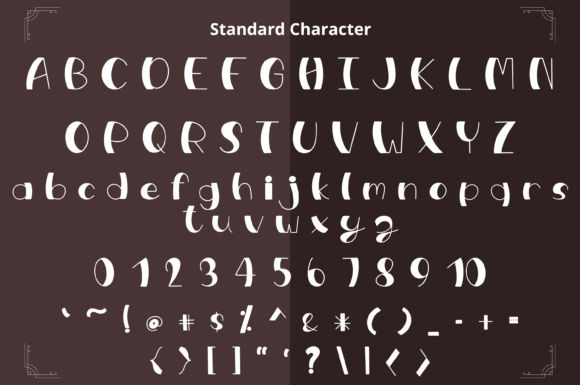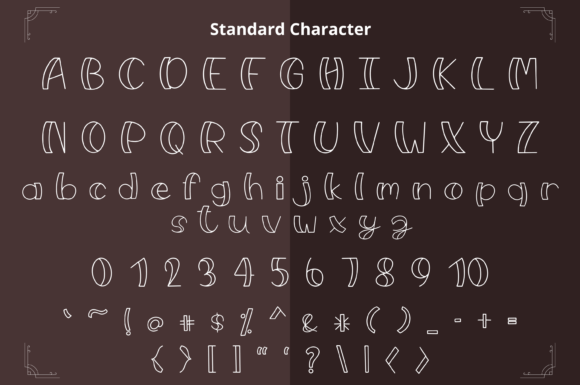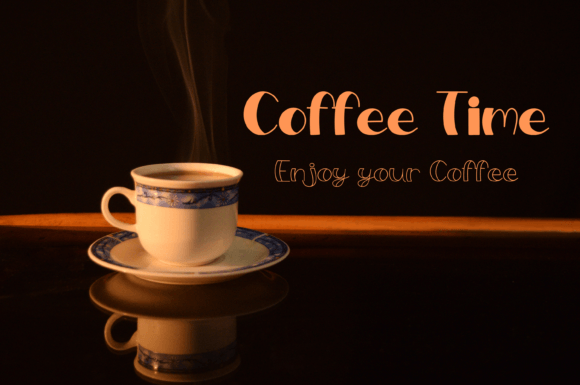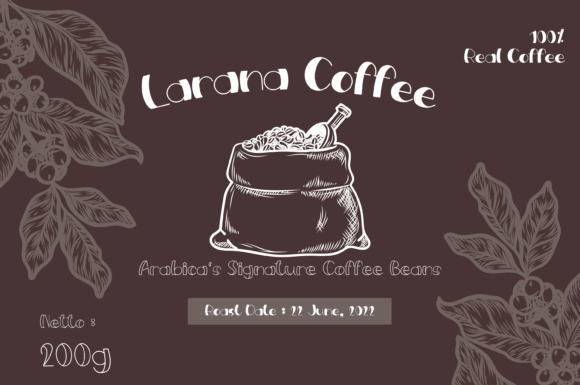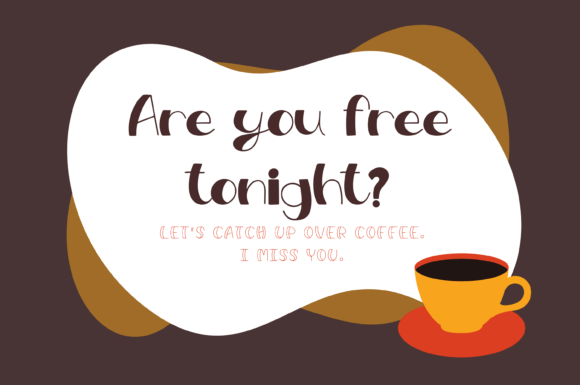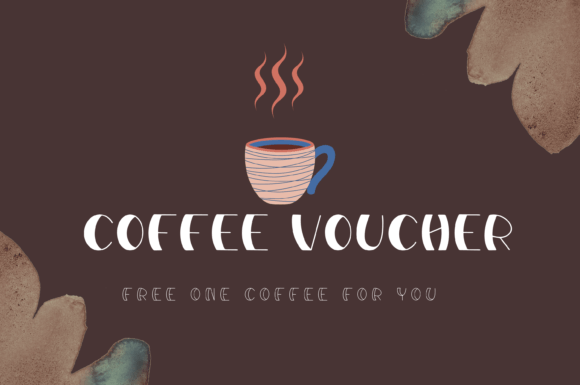
Introduction to Hello Espresso Style Font
Remember that moment when you’re brainstorming ideas for your next creative project, and suddenly, the perfect font pops into your head? For many designers, this is the spark that sets their imagination ablaze. But what happens when you can’t quite find the font that captures the essence of your vision? Enter the Hello Espresso Style Font, a delightful and clean handwritten font that’s sure to elevate your designs to the next level.
With its whimsical touch and high-quality design, the Hello Espresso Style Font is a valuable asset for any designer looking to add a personal touch to their projects. Whether you’re working on a free download or a paid design resource, this font is sure to make your creative ideas stand out. Its transparent background and elegant script make it the perfect match for a wide range of projects, from wedding invitations to marketing materials.
Key Features of Hello Espresso Style Font
- High-quality font design for creative projects, offering a unique and modern look.
- Features a transparent background, making it easy to use on various backgrounds.
- Supports a wide range of languages, making it a versatile design resource.
Honest Review: Hello Espresso Style Font
I recently had the chance to work with the Hello Espresso Style Font, and I must say it’s been a game-changer for my creative projects. The font is a high-quality design resource that can elevate any project with its sleek and modern design.
One of the things that stood out to me about the Hello Espresso Style Font is its transparent background, which makes it incredibly versatile and easy to work with. It’s perfect for designers who want to create a cohesive and polished look without the hassle of complicated background designs.
Here are some of the things that work well with the Hello Espresso Style Font:
- ✨ High-quality design: The font is clear, crisp, and professional-looking.
- ✨ Transparent background: Makes it easy to work with and combine with other design elements.
As with any design resource, there are some limitations to consider:
- ⚠️ Limited character set: May not be suitable for complex or lengthy text.
- ⚠️ May require additional styling: Can be customized to fit your design aesthetic, but may require some extra effort.
Overall, I’m really impressed with the Hello Espresso Style Font. It’s a great addition to any designer’s toolkit, and I highly recommend it for any creative project that requires a high-quality, modern font.
To get the most out of the Hello Espresso Style Font, use it with a transparent background to create a modern and sleek look. You can also pair the font with other design elements, such as graphics and images, to create a unique and eye-catching design.
The Hello Espresso Style Font is ideal for use in a variety of creative projects, including logos, business cards, social media graphics, brochures, flyers, posters, presentations, and documents. With its high-quality design and transparent background, this font is a great resource for designers and non-designers alike.